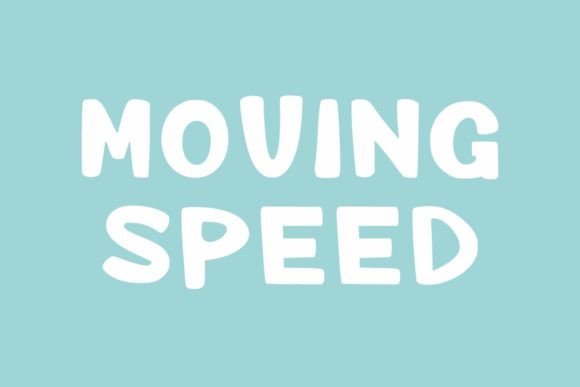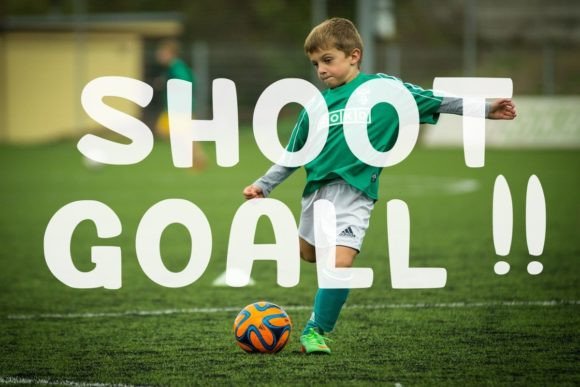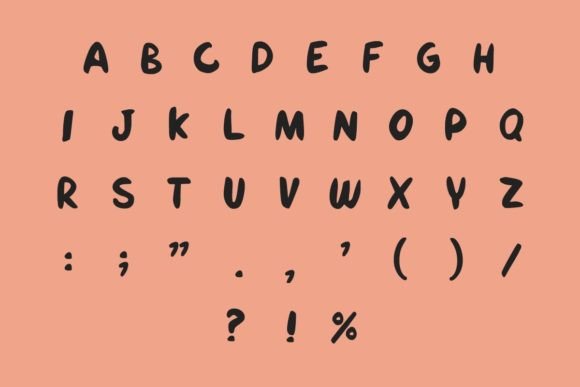
Introduction to Karate Kids Font
Remember that moment when you stumbled upon the perfect font for your creative project? It’s like stumbling upon a treasure chest filled with creative possibilities. For designers, finding the right font can make all the difference between a good design and a great one. And that’s exactly what we’re about to share with you – a font that’s sure to bring a smile to your face and a spring to your creative step.
Meet the Karate Kids Font, a delightful and playful display font that’s perfect for all your whimsical projects. Its chunky and rounded letters exude a friendly and approachable feel that’s sure to captivate your audience. Whether you’re working on a children’s book, designing a toy, or creating a fun and quirky campaign, the Karate Kids Font is an invaluable resource that’s sure to elevate your design to the next level.
Key Features of Karate Kids Font
- High-quality design resource suitable for various creative projects
- Comes in a transparent background, allowing for easy customization
- Unique and playful design inspired by the classic movie, perfect for adding a nostalgic touch to any project
Honest Review: Karate Kids Font
As a designer, I’m always on the lookout for unique and high-quality design resources to elevate my creative projects. Recently, I stumbled upon the Karate Kids Font, and I must say it’s a fun and quirky addition to any design.
- The font features a transparent background, allowing for seamless integration into any design.
- The font’s retro aesthetic is perfect for projects that require a nostalgic vibe.
- The font is highly customizable, with various styles and sizes available for download.
- The font may not be suitable for professional or corporate projects due to its playful and informal nature.
- The font’s quality may not be suitable for large-scale printing or high-resolution designs.
Overall, I’m impressed with the Karate Kids Font. It’s a fun and creative resource that’s perfect for personal projects or designs that require a lighthearted touch. With its high-quality design and transparent background, it’s a great addition to any design resource library. I’d definitely recommend it to fellow designers looking for a unique and quirky font.
Tips for Getting the Most Out of Karate Kids Font
For the best results, use the Karate Kids Font in conjunction with other design elements, such as graphics and textures. Experiment with different font sizes and styles to add visual interest to your design project.
The Karate Kids Font is perfect for a variety of creative projects, including posters, flyers, and social media graphics. Its fun and playful design makes it ideal for kids’ parties, sports teams, and other family-friendly events.